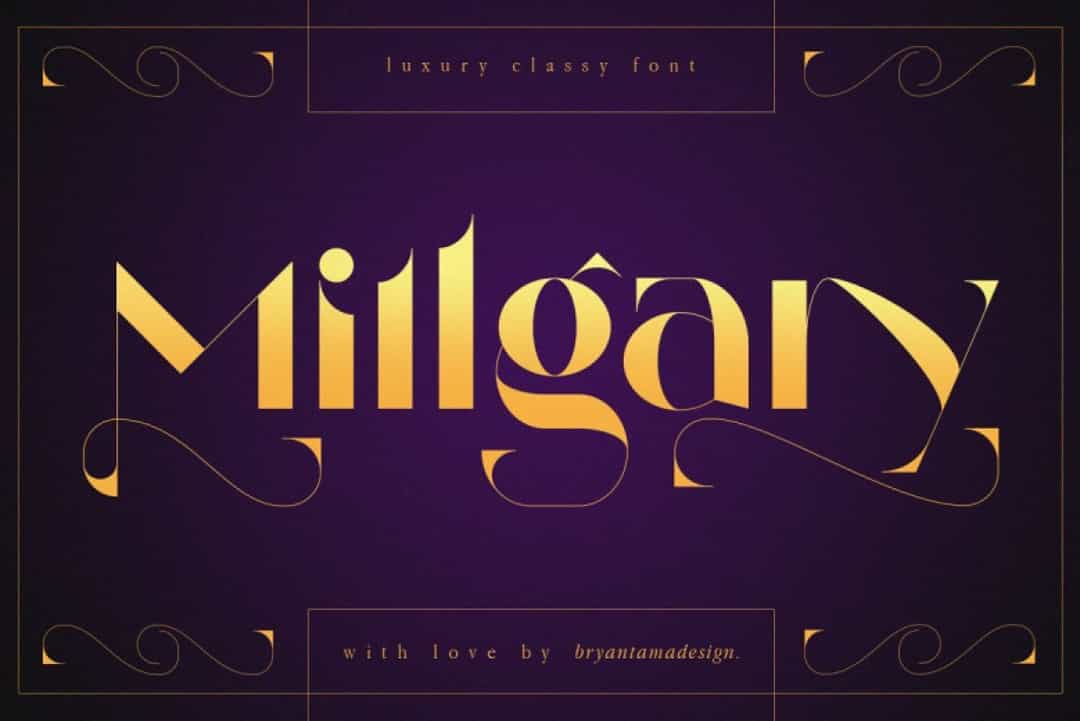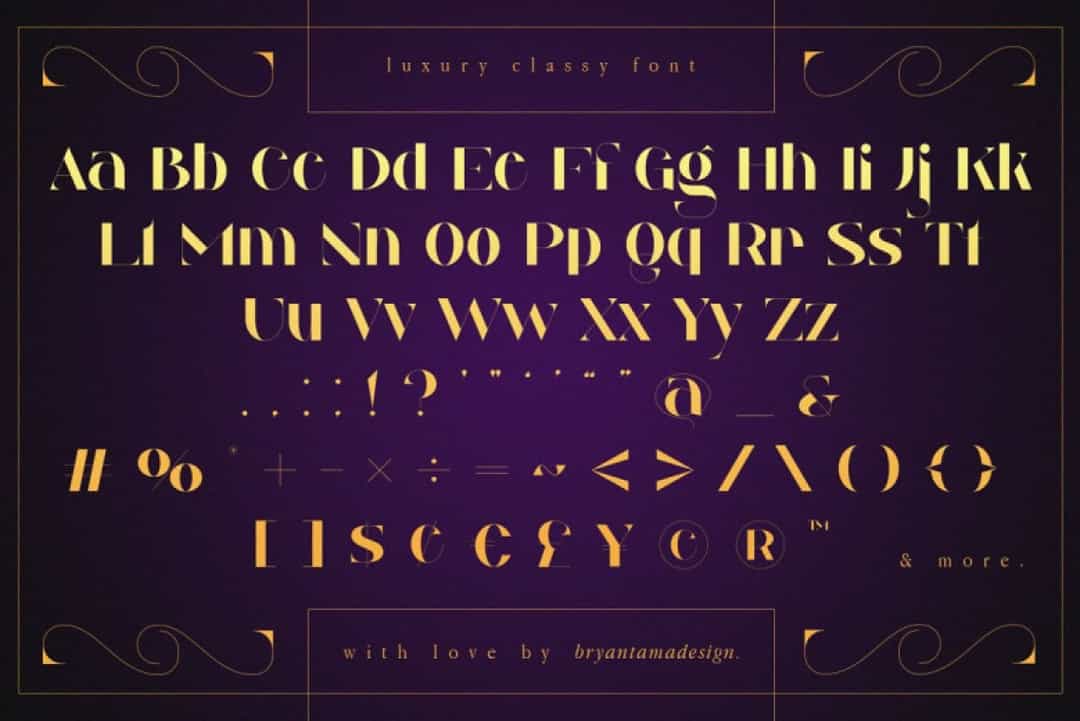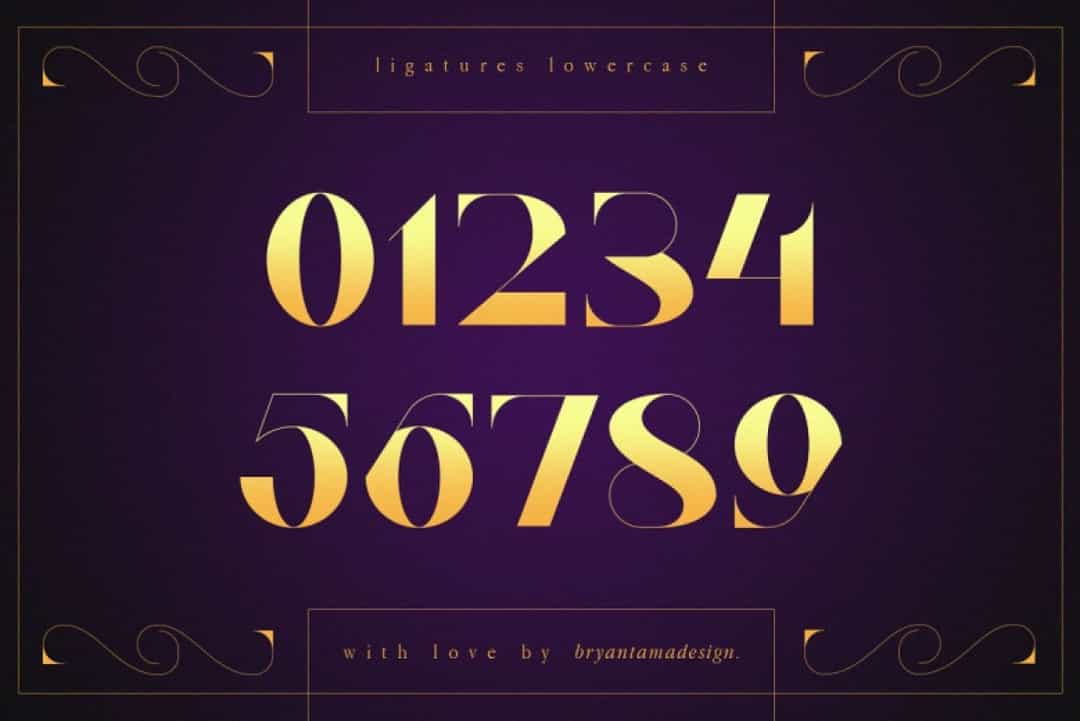
Millgary is an elegant and timeless sans-serif display font with an impressive style, taking inspiration from historical European cities’ architecture to craft an ornate character with modern elements that is perfect for brand posters, social media packaging and much more.